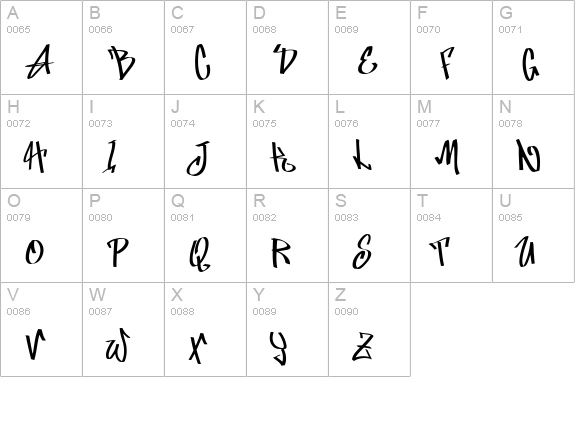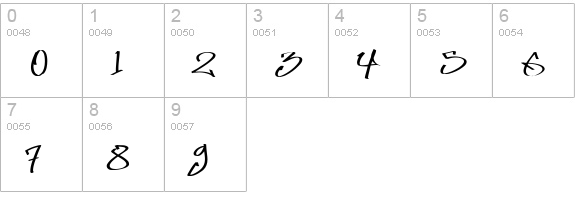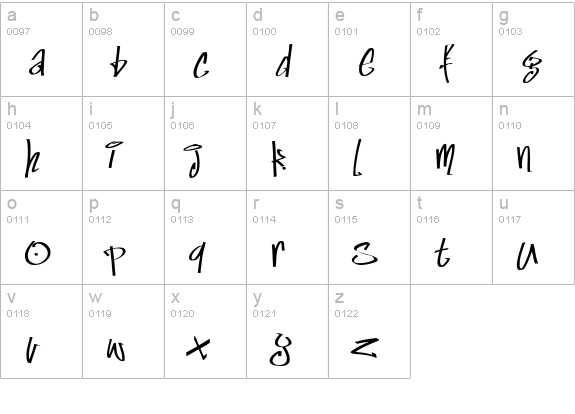
Marker Skinny Font Details
Marker Skinny is a captivating and modern handwritten font that effortlessly blends creativity with a touch of elegance. Its slender and graceful strokes give your designs a unique and artistic flair, making it perfect for adding a personal touch to any project. With its distinct and eye-catching style, Marker Skinny stands out from the crowd, making a bold statement that demands attention. Whether used in logos, headlines, or social media posts, this font is sure to leave a lasting impression on your audience. The versatility of Marker Skinny is truly remarkable. Its clean and smooth lines make it easy to read, even at smaller sizes, while its slight slant adds a dynamic and energetic vibe to your designs. This font is a perfect choice for anything from branding and advertising to invitations and greeting cards. One of the best things about Marker Skinny is that it is free to download at FontsMarket.com. This means that you can add this incredible font to your collection without worrying about breaking the bank. Its availability as a free download allows you to unleash your creativity without any limitations, making it a valuable asset for designers, artists, and enthusiasts alike. So why wait? Explore the possibilities of Marker Skinny today and let your imagination run wild. Download this stunning font for free at FontsMarket.com and elevate your designs to new heights.